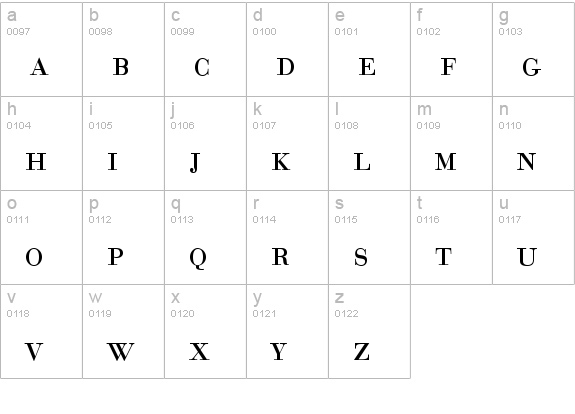
Bauer Bodoni SC D Regular Font Details
Bauer Bodoni SC D Regular is the standard, neutral variant in the Bauer typeface family \xE2\x80\x94 well suited to general body text, paragraphs, and standard typographic work.
Bauer Bodoni SC D Regular is a timeless and elegant serif font that exudes sophistication and class. With its delicate serifs and graceful curves, this font is perfect for adding a touch of refinement to any design project. The clean lines and balanced proportions of Bauer Bodoni SC D Regular make it versatile and easy to read, making it ideal for both print and digital applications. The best part is that Bauer Bodoni SC D Regular is available for free download at FontsMarket.com. This means you can easily access this exquisite font without any cost, making it a valuable resource for designers, creatives, and anyone looking to elevate their projects with a touch of sophistication. Download Bauer Bodoni SC D Regular today and add a touch of elegance to your designs.